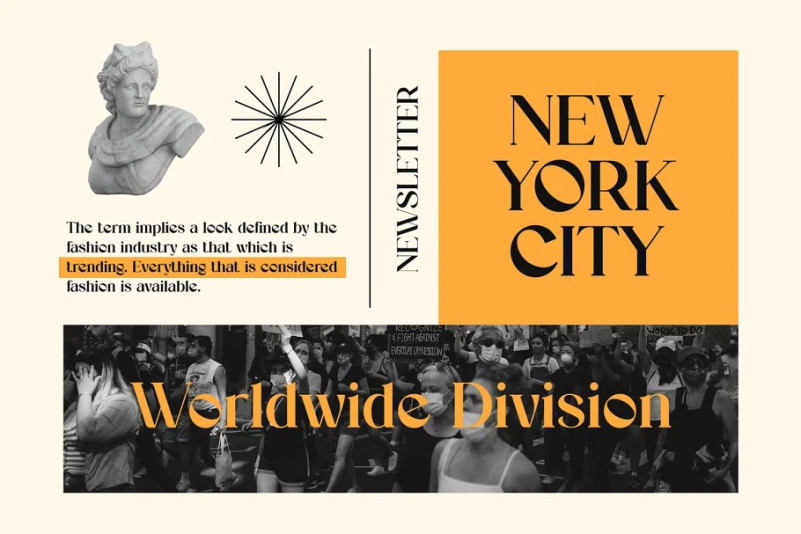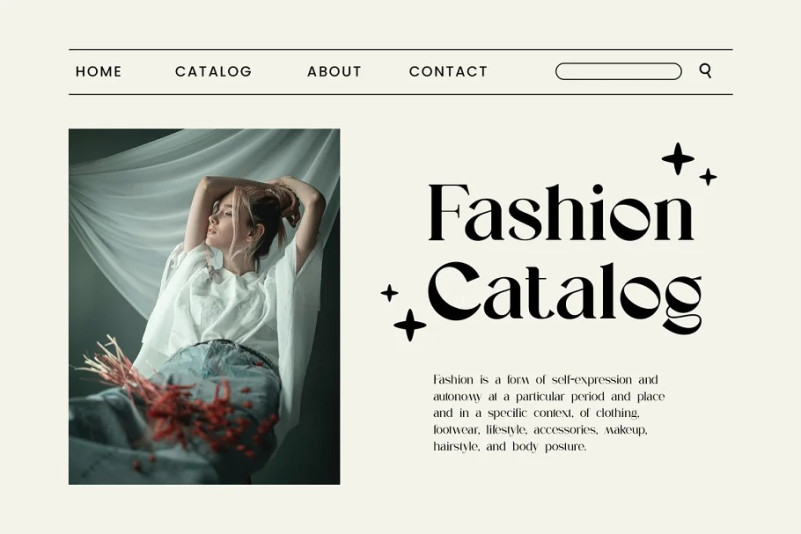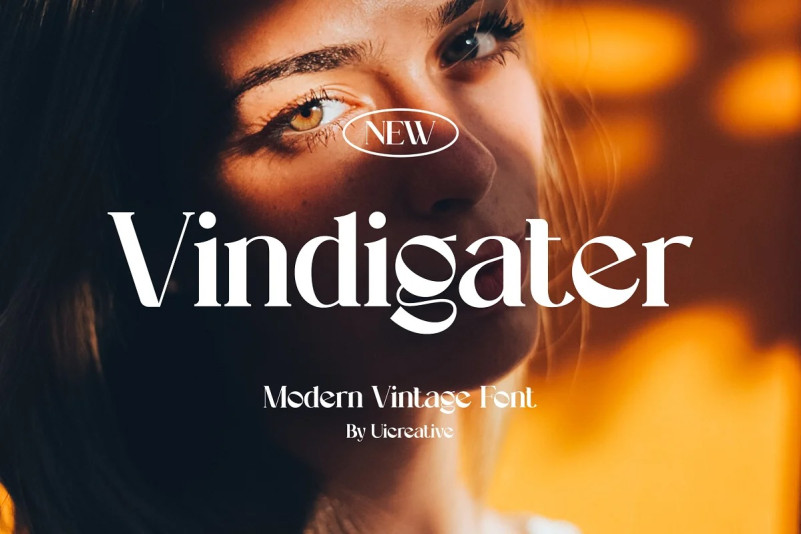
Vindigater Font
Vindigater Font – Modern Retro Serif Font. The modern display font feels beautiful classy, elegant, and stylish. This font is ideally suited for a wide variety of projects, such as signature, stationery, logo, wedding, typography quotes, magazine or book covers, website headers, branding, and more. Also, fashion-related branding or editorial design displays both masculine and feminine qualities.